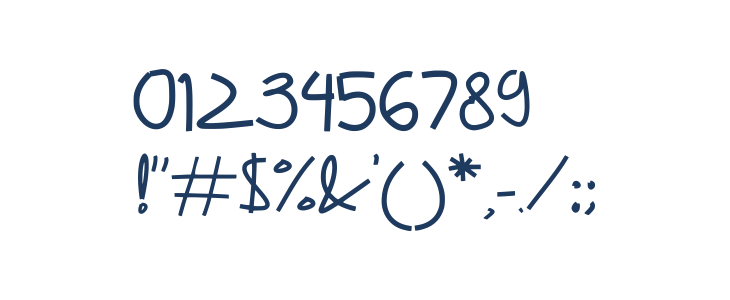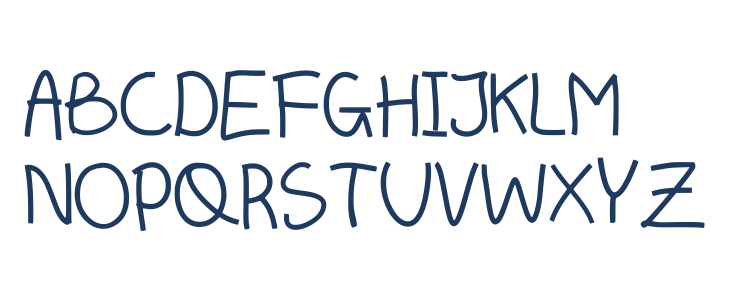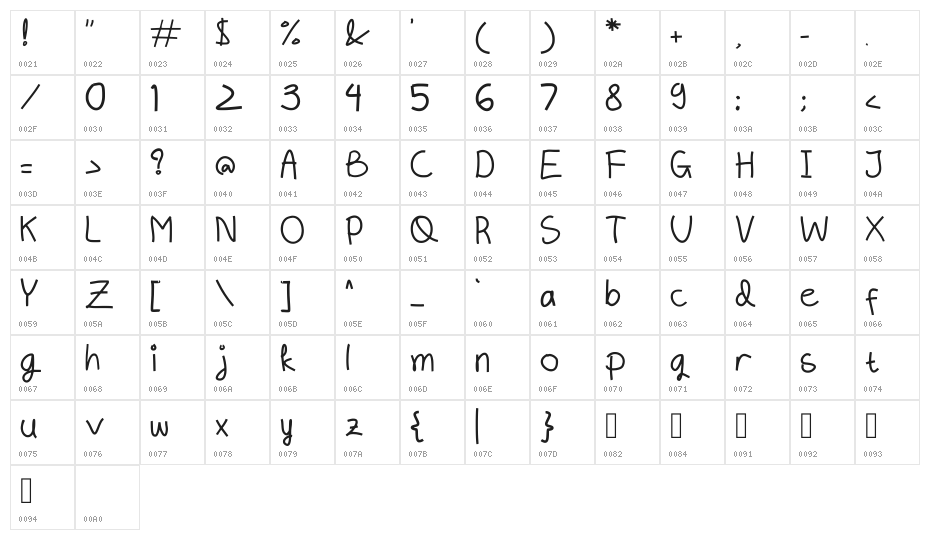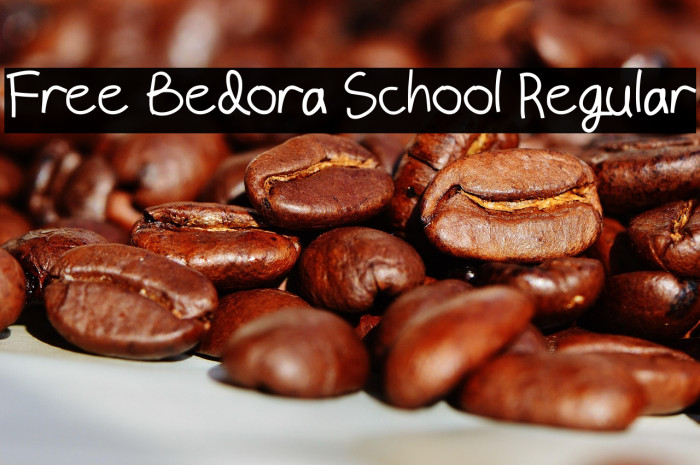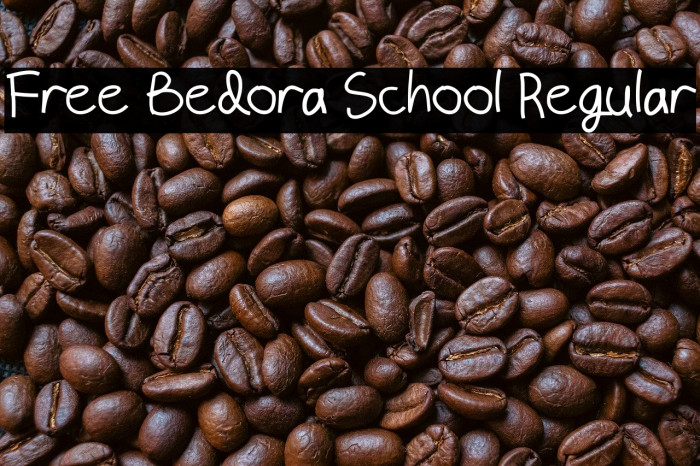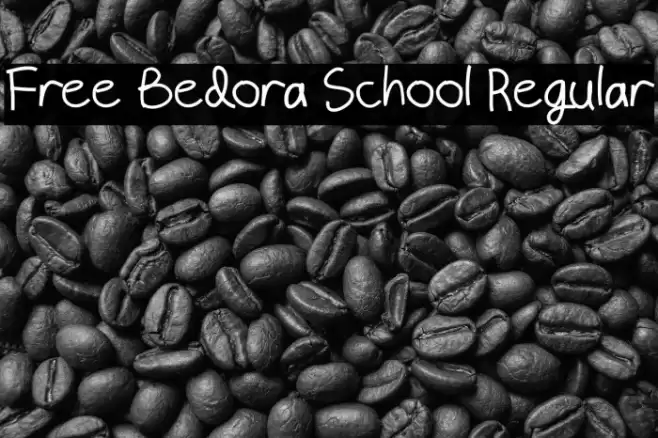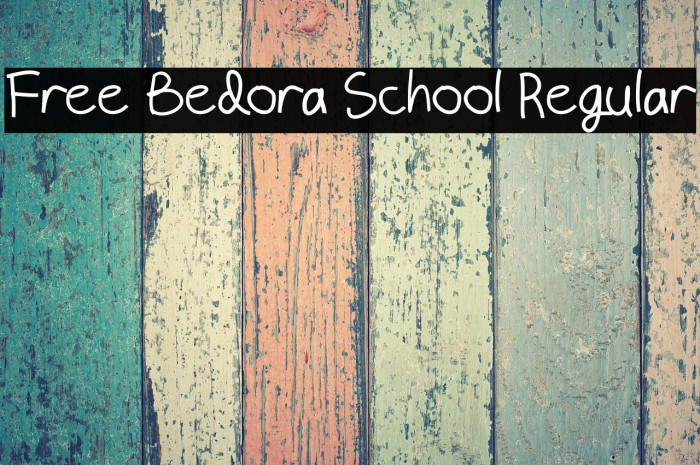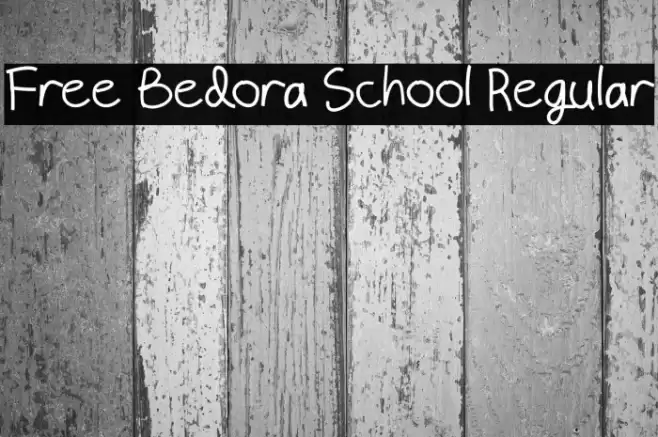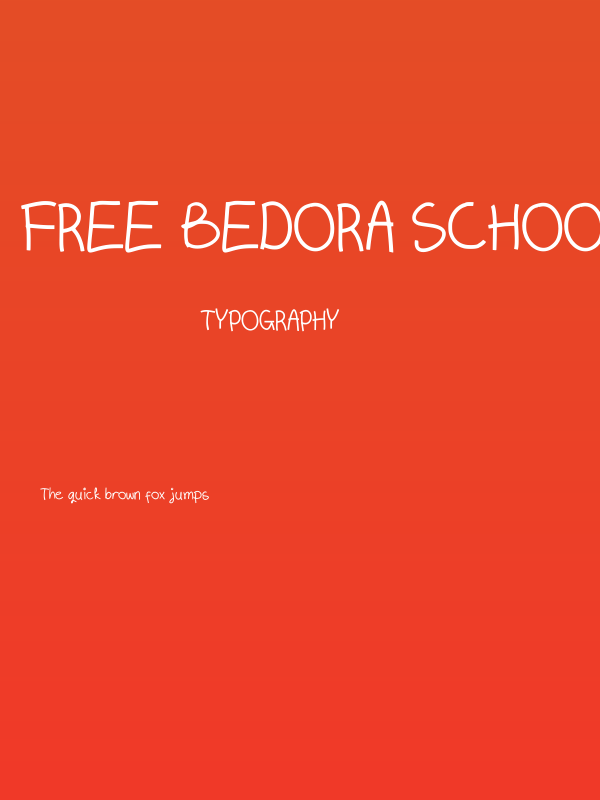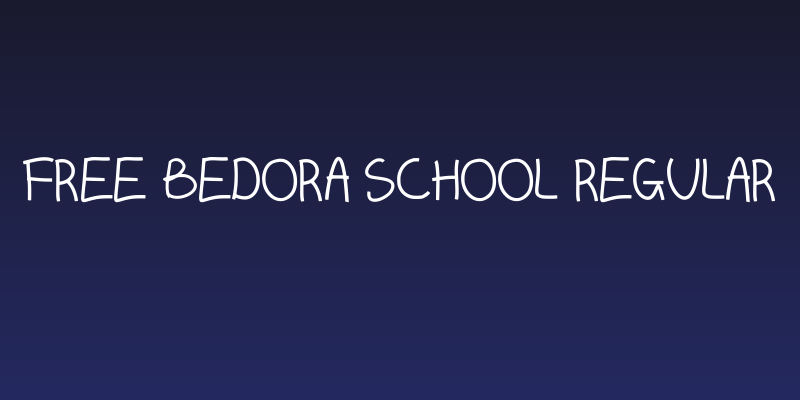
Free Bedora School Regular Font
A playful, handwritten style font with a casual and friendly appearance, featuring slightly irregular letter shapes and a smooth, flowing stroke.
| Overall Style | Casual, Playful, Friendly |
| Use Case | Headlines, Body text, Logos, Invitations, Educational materials |